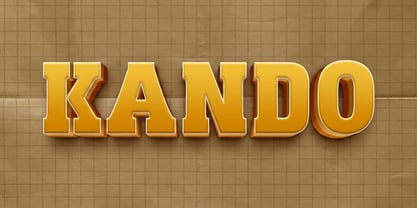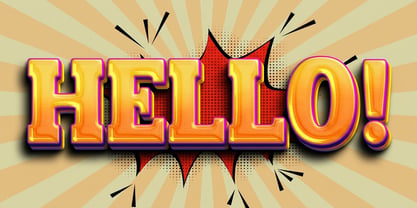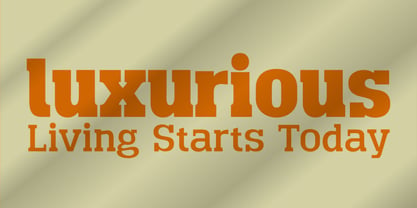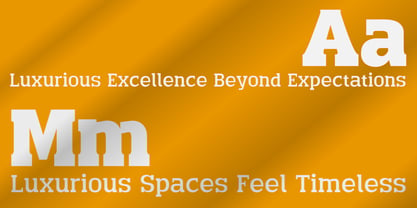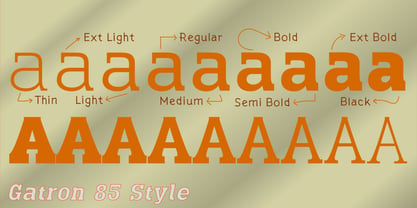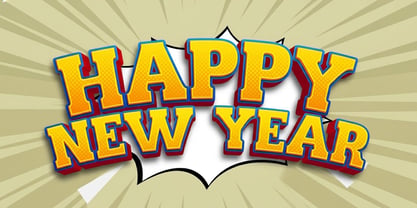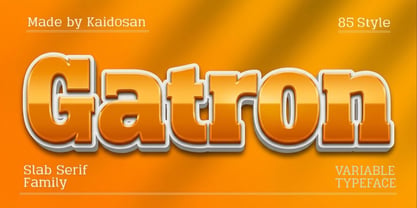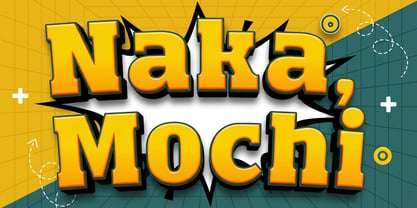
Gatron
von Kaidosan
Die Schriftfamilie Gatron wurde von Muhammad Ansari entworfen und von Kaidosan veröffentlicht. Gatron enthält 85 Stile und Familienpaketoptionen. Mehr über diese Familie
Gatron is a bold slab serif variable typeface designed to make a strong visual impact while maintaining exceptional readability. Featuring 85 styles, it offers extensive flexibility through multiple weights, widths, and italics, making it ideal for branding, logos, headlines, packaging, editorial design, posters, and digital interfaces. With its solid geometric structure, smooth curves, and contemporary character, Gatron delivers a confident and versatile typographic solution for both print and screen. Crafted by Kaidosan, Gatron combines modern precision with timeless strength to meet the demands of today's creative professionals.
Designer: Muhammad Ansari
Foundry: Kaidosan